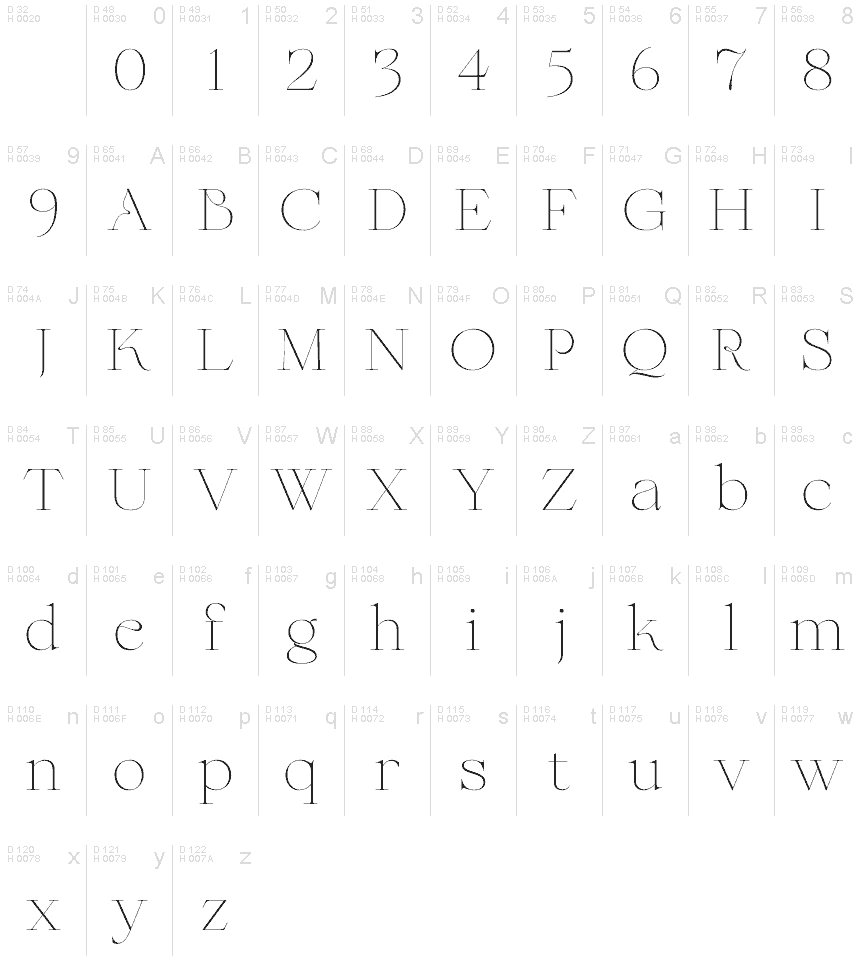
feonie
Feonie is a classic serif font in light weight designed by ReyreyBlue. This font features delicate curves on the top and bottom ends of letters and alternates to offer unique options when dealing with multiple characters. The font offers a beautiful experience and can be useful in branding, packaging, book covers, posters, apparel, and social media posts.